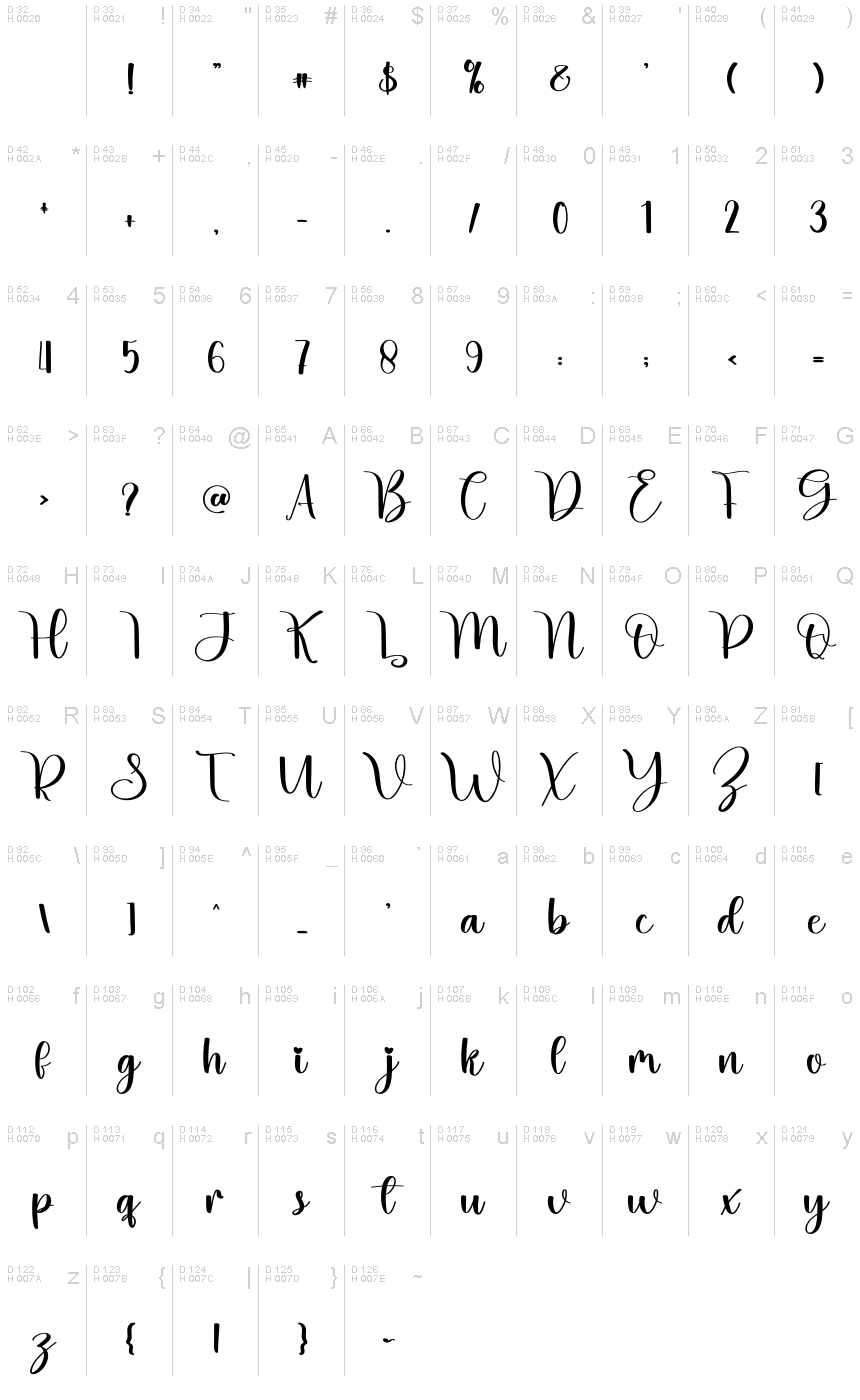
Little Beach
Little Beach, created by FreshtypeINK, is a visually captivating calligraphy font that exudes elegance and charm. With its swooping strokes and meticulously crafted curves, Little Beach brings a sense of warmth and personality to any design. The font’s distinctively flowing lines make it ideal for projects seeking a touch of sophistication and creativity.
Whether used in wedding invitations, branding elements, or social media graphics, Little Beach stands out with its graceful appearance. Its artistic flourish makes it perfect for conveying heartfelt messages and creating memorable visual experiences. Transform your design projects with the enchanting allure of Little Beach.